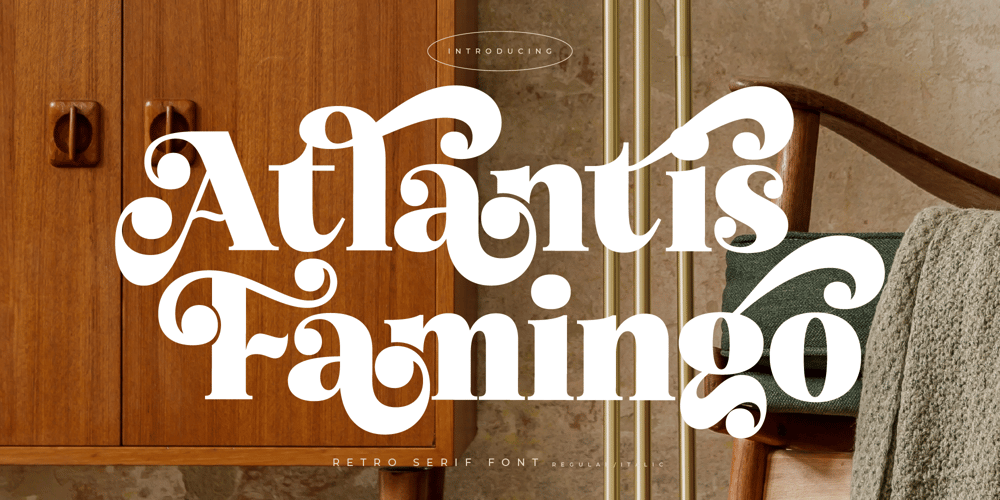
Atlantis Famingo Font Family was designed by Heru Utama Putra and published by Letterena Studios. Atlantis Famingo contains 2 styles and family package options. Atlantis Famingo is a retro stylish serif display font that combines sophistication with contemporary flair. Its clean lines and balanced proportions make it perfect for editorial designs, branding, and logos. With its versatility and timeless appeal, Atlantis Famingo elevates any project with elegance and professionalism.